Elevate Your Stationery: Top 10 Best Elegant Wedding Font Picks for Designers
Finding the perfect typography is the secret to creating truly unforgettable stationery. As a designer, I know how the right lettering instantly elevates a blank canvas into a premium masterpiece. Today, I am sharing 10 of my absolute favorite Elegant Wedding Font picks to help craft your dream aesthetic.
1. Le Mores Signature Elegant Wedding Font
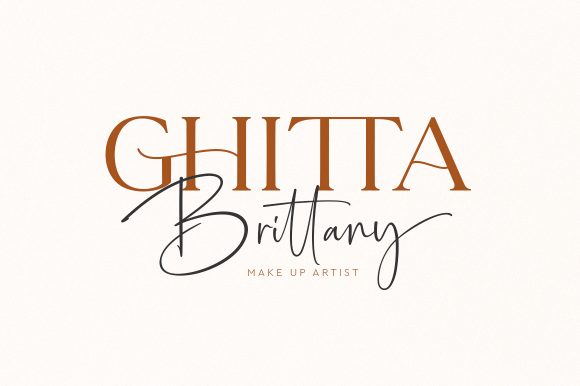
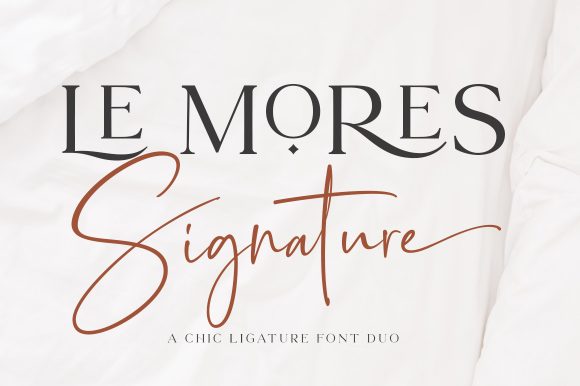
Achieving high-end luxury in typography is all about the contrast between sharp structure and fluid motion. That is why Le Mores Signature is such an incredible Elegant Wedding Font. As a designer, I am obsessed with this assertive duo, which beautifully pairs a crisp serif with a sweeping signature script. It effortlessly injects a sophisticated spark into bespoke invitations, chic menu cards, and luxury boutique branding, delivering a flawless editorial finish every single time.
Beyond its striking looks, this duo is incredibly efficient for a busy studio workflow. I love that it is fully PUA encoded, meaning you can easily access all those amazing alternate glyphs and intricate ligatures without any complex software tricks. This technical freedom lets you quickly customize every word, ensuring your final design always feels authentically hand-lettered and effortlessly chic.
2. Margin Elegant Wedding Font
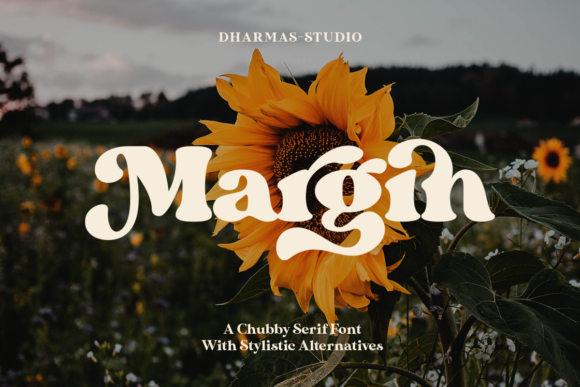
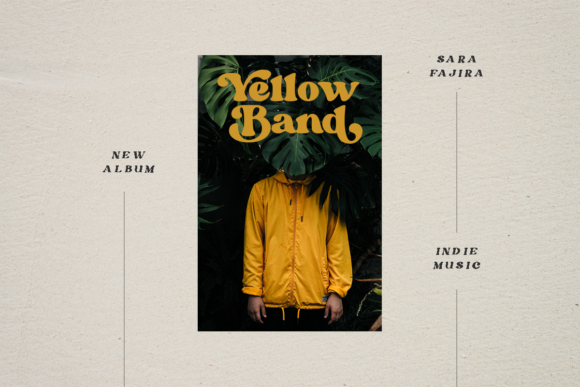
Sometimes, breaking away from traditional, ultra-thin scripts is exactly what a high-end project needs to truly stand out. That is why I am so captivated by Margin, an unexpectedly bold and stylish choice for an Elegant Wedding Font. Drawing rich inspiration from classic, retro-leaning typography, this chubby serif brings an incredibly unique, organic warmth to the canvas. It is perfect for couples who want their celebration to feel distinctly modern and confidently stylish, offering that highly sought-after premium studio aesthetic that breaks the mold of standard delicate calligraphy.
As a designer, I am always searching for versatile typography that performs beautifully across entirely different mediums without losing its character. This fantastic serif is an absolute powerhouse, looking genuinely spectacular whether you are laying out massive, eye-catching headlines for a digital invitation or formatting essential text blocks for printed menus. It translates flawlessly from tactile paper elements to sleek web designs, giving you the ultimate creative flexibility to craft a cohesive, highly polished visual experience from the save-the-dates to the final thank-you cards.
3. Bailenson Elegant Wedding Font
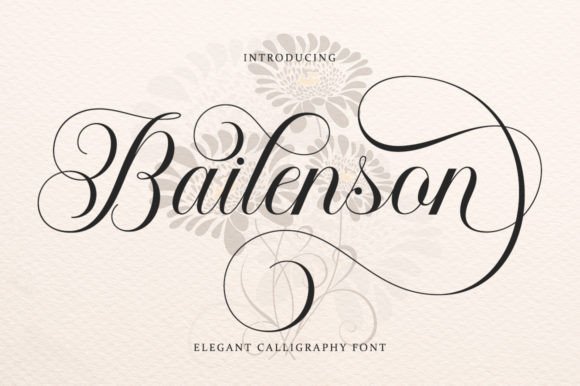
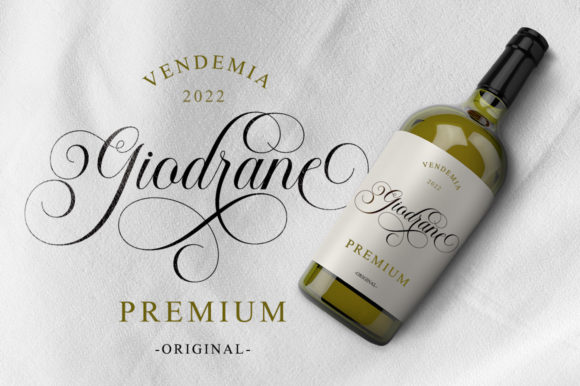
There is a timeless romance in looking back at classic calligraphy and historic manuscripts for modern design inspiration. When a project demands a deeply formal and luxurious touch, Bailenson is an incredibly striking Elegant Wedding Font to keep in your studio toolkit. As a designer who appreciates a clean, premium aesthetic, I am completely captivated by how this typeface balances intricate, sweeping swashes with refined grace. Inspired by the beautiful fluidity of historic Italian handwriting, it instantly elevates your canvas, making it a brilliant choice for bespoke event stationery or high-end boutique branding.
What makes this calligraphic script so special is how carefully each letterform is designed to flow together in perfect harmony. It is an absolute powerhouse for any studio work that requires a sophisticated, classic finish. Whether you are laying out delicate typography for bespoke wedding favors, designing elegant greeting cards, or crafting a formal certificate, this typeface delivers flawlessly. It provides that exact touch of timeless luxury, transforming a standard digital layout into a truly memorable, editorial masterpiece.
4. Elegant Wedding Font
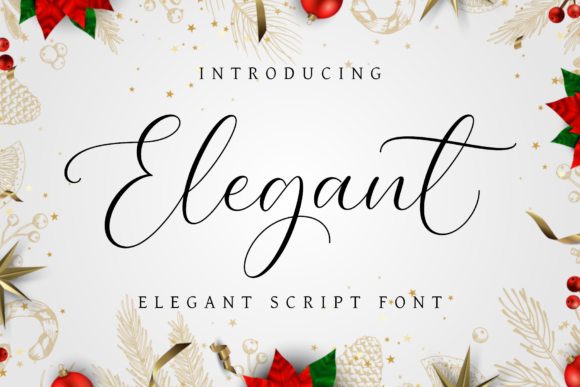
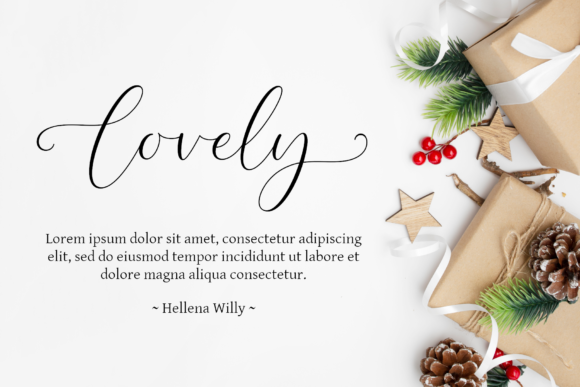
There are times when a font’s name perfectly captures its essence, and this beautiful script is the definition of grace. Appropriately named, this Elegant Wedding Font feels incredibly flowing, balancing smooth lines with a lively, varying baseline for that sought-after organic feel. As a designer focused on premium aesthetics, I find it looks absolutely stunning on high-end wedding invitations and delicate thank you cards.
Beyond stationery, what makes this typeface truly special for a busy studio workspace are the gorgeous glyphs and stunning alternates included. These features make it incredibly easy to customize a look for branding projects, chic business cards, or inspirational quotes. It seamlessly delivers that polished, handwritten touch that instantly upscale any visual canvas you are working on.
5. Galem Elegant Wedding Font
Finding a serif that feels both commanding and delicately graceful is a rare treat in typography, which is exactly why Galem immediately caught my attention. If you are searching for a truly sophisticated Elegant Wedding Font, this modern typeface delivers an incredibly refined, high-end aesthetic. As a designer who leans heavily into clean, premium visuals, I am obsessed with how its strong serif structure perfectly contrasts with its whisper-thin strokes. It is an absolute dream for crafting luxurious wedding invitations, elegant editorial layouts, and bespoke brand identities that need to feel both timeless and boldly contemporary.
Beyond its striking initial impression, what makes this typeface a staple in my digital workspace is its beautifully crafted hidden details. It comes loaded with a stunning array of elegant ligatures and artistic alternates that instantly elevate your standard text into an exclusive, custom-lettered masterpiece. This level of built-in flexibility allows you to effortlessly tweak and refine your typography, ensuring that every headline, menu card, and monogram feels meticulously crafted, deeply personal, and flawlessly polished for your high-end clients.
Conclusion
I hope this curated list helps you find the ultimate Elegant Wedding Font for your big day. Whether you lean towards a bold modern script or a timeless calligraphy style, the right typography ties your whole cohesive vision together. I cannot wait to see these beautiful assets in your own designs!